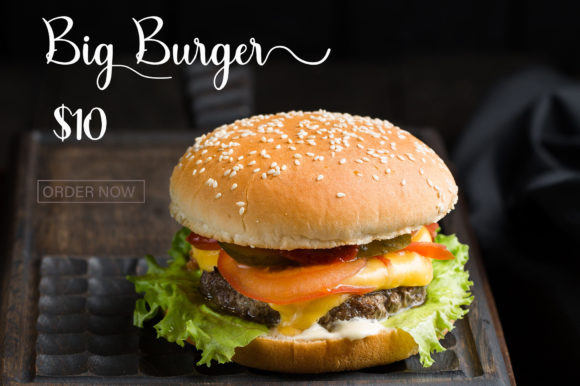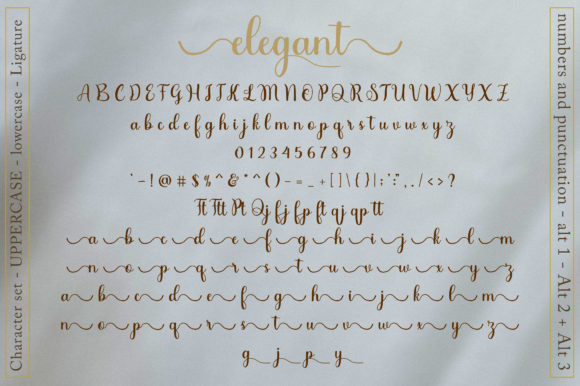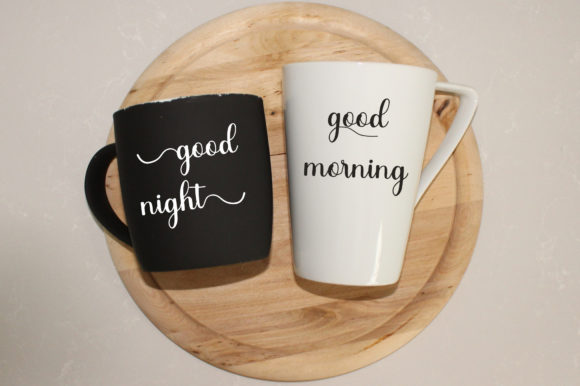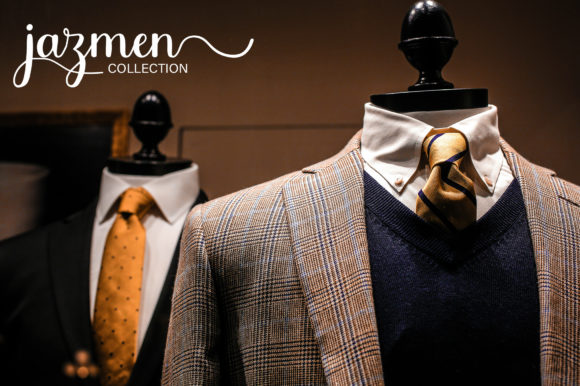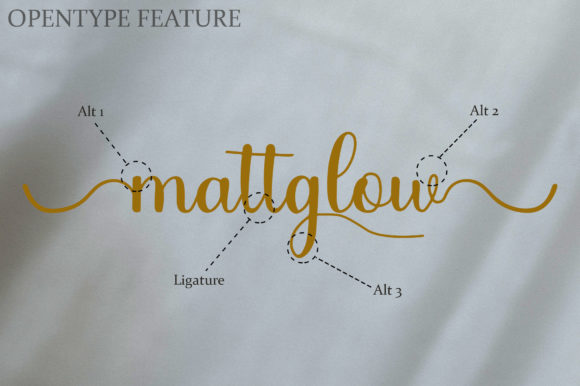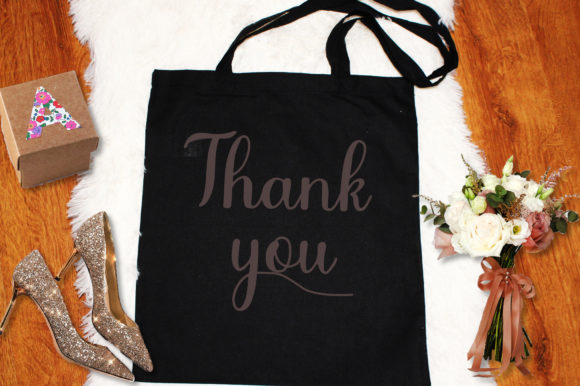
Elegant Font: Elevate Your Designs with Sophistication and Class
In the world of typography, few fonts manage to convey the essence of elegance and sophistication as effortlessly as the Elegant font. This lovely and delicate script font has been meticulously crafted for designers, crafters, and anyone looking to infuse their projects with a touch of refinement and luxury. Whether you’re working on a branding project, creating beautiful wedding invitations, or simply looking to add a dash of class to your digital or print designs, Elegant is the perfect choice.
The Essence of Elegance
Elegant is more than just a font; it’s an experience. Its fluid lines, graceful curves, and exquisite swashes bring a level of sophistication that is hard to achieve with standard typefaces. This font is particularly useful for projects that demand a high level of elegance, such as luxury brand logos, high-end fashion magazines, elegant stationery, and bespoke invitations. The Elegant font isn’t just about aesthetics; it’s about creating an impression that is both lasting and memorable.
One of the standout features of the Elegant font is its PUA (Private Use Area) encoding. This means that accessing the beautiful glyphs and swashes is incredibly straightforward. PUA encoding allows designers to easily navigate through the font’s extensive library of characters, including alternates, ligatures, and decorative swashes, without needing specialized software. This feature makes it incredibly easy to customize your text, adding unique touches to your designs that set them apart from the ordinary.
Elegant’s versatility is another one of its strong suits. This font can be used across a wide range of design projects, from digital platforms like websites and social media graphics to print materials such as brochures, posters, and business cards. Its adaptability makes it a valuable asset for any designer looking to expand their typographic arsenal with a single, high-quality font.
Why Choose Elegant?
- Unparalleled Elegance: Offers a unique, sophisticated look that elevates any design.
- PUA Encoded: Provides easy access to a wide range of glyphs and swashes.
- Highly Versatile: Suitable for both digital and print projects across various industries.
- User-Friendly: Compatible with most design software, making it easy to incorporate into your workflow.
Tips for Using Elegant Font
To make the most out of the Elegant font, consider the following tips:
- Pair with Simpler Fonts: For body text, pair Elegant with a simpler, sans-serif font to create contrast and ensure readability.
- Experiment with Swashes: Don’t be afraid to get creative with the font’s swashes and glyphs to add a personal touch to your designs.
- Adjust Font Sizes: Play with different font sizes to emphasize certain parts of your text, adding depth and interest to your layout.
Elegant is not just a font; it’s a design statement. Its elegant and delicate appearance makes it an ideal choice for anyone looking to add a touch of class and sophistication to their projects. With its PUA encoding for easy access to glyphs and swashes, and its versatility across various design applications, Elegant is poised to become a go-to font for designers and crafters around the world. Whether you’re aiming to create stunning visuals, convey luxury, or simply add a bit of flair to your designs, Elegant is the perfect tool to help you achieve your creative vision.